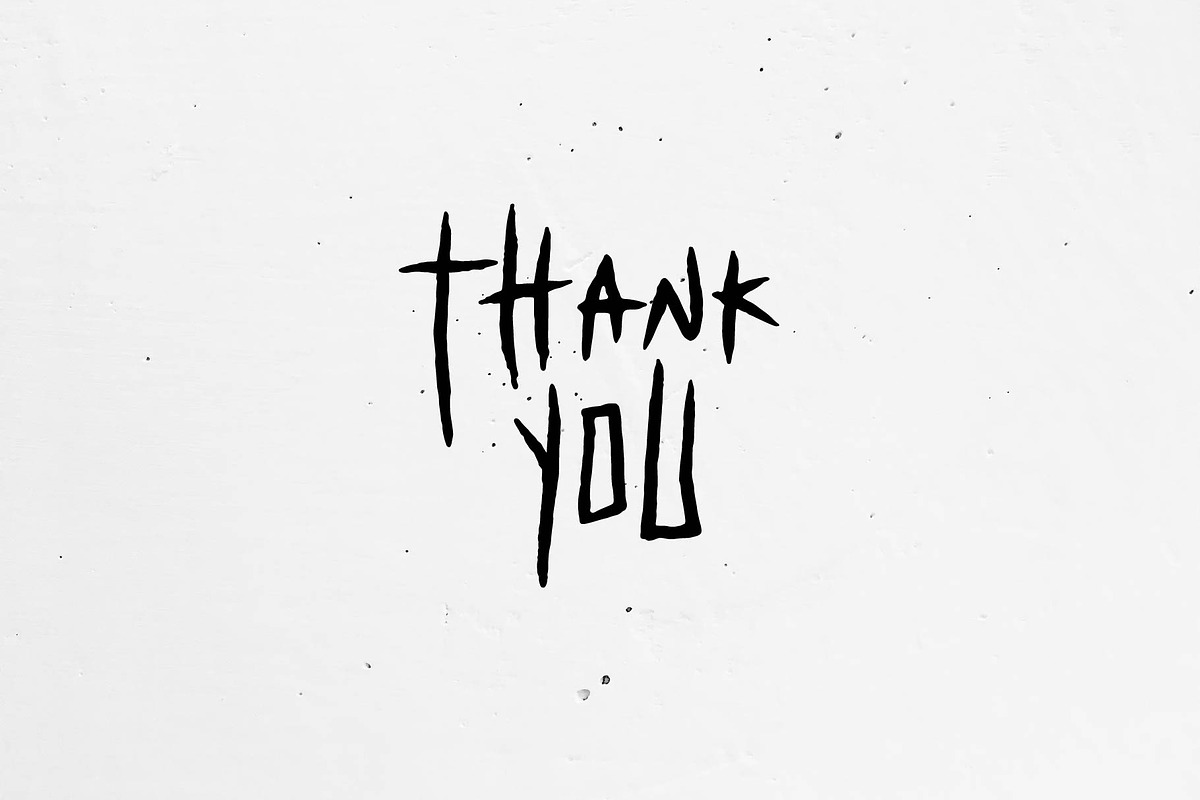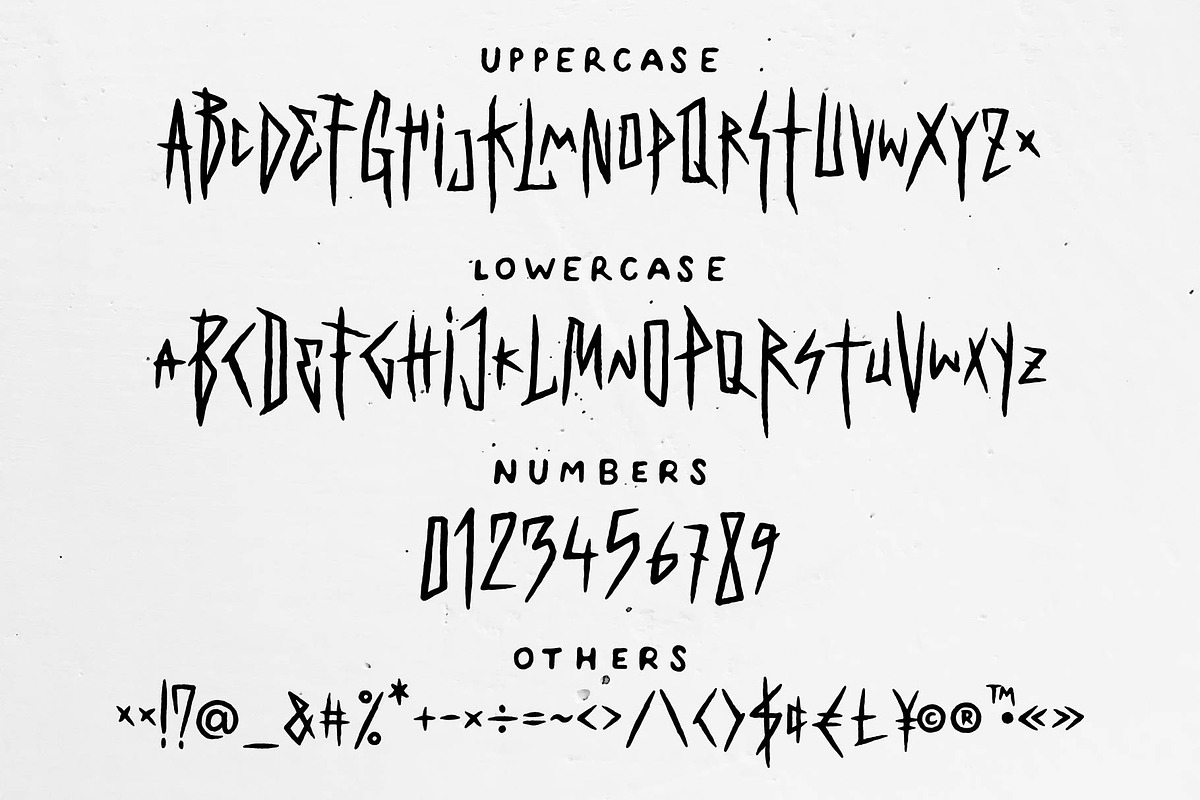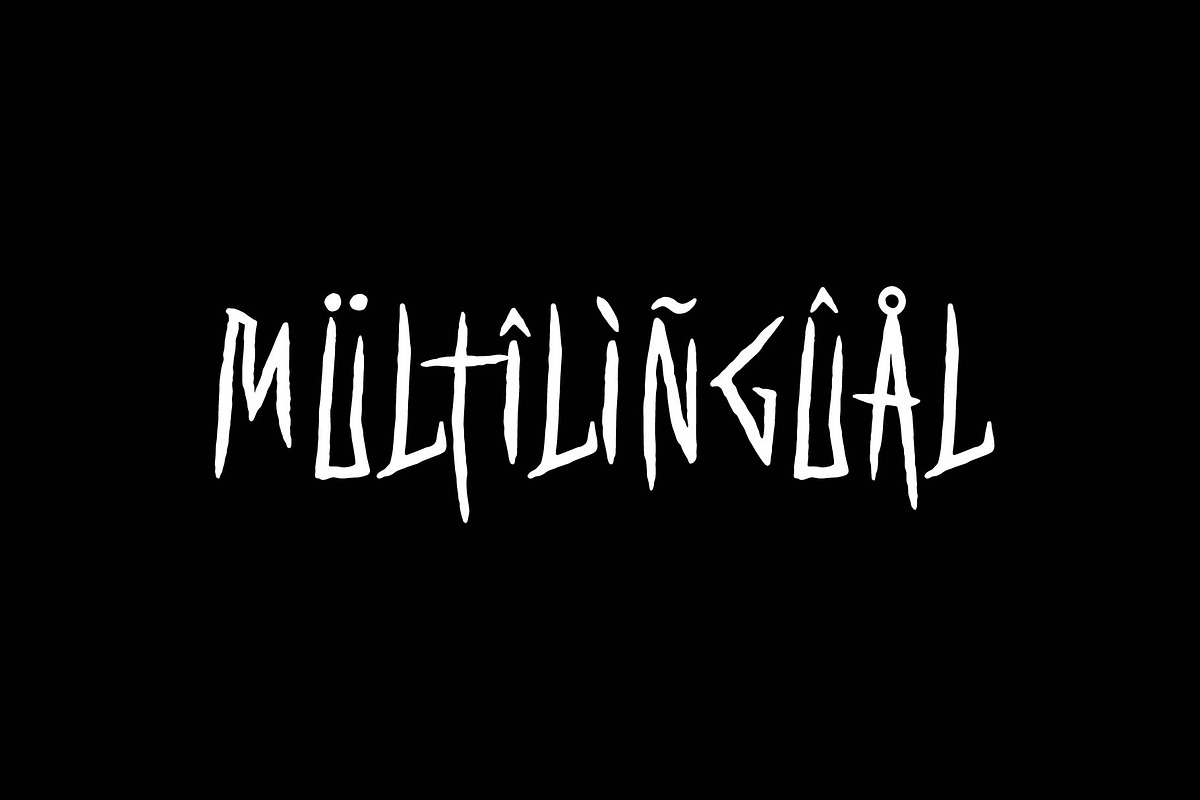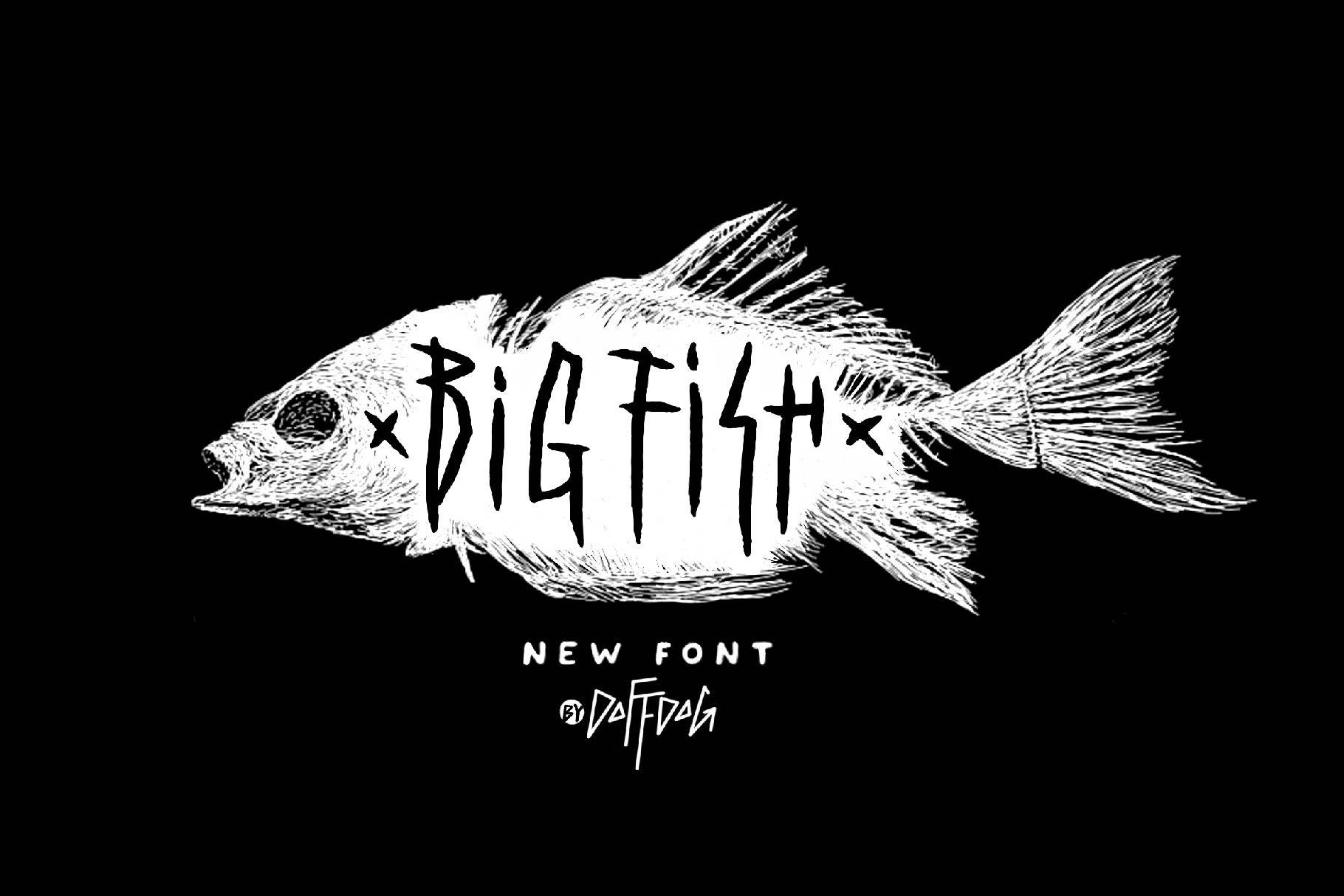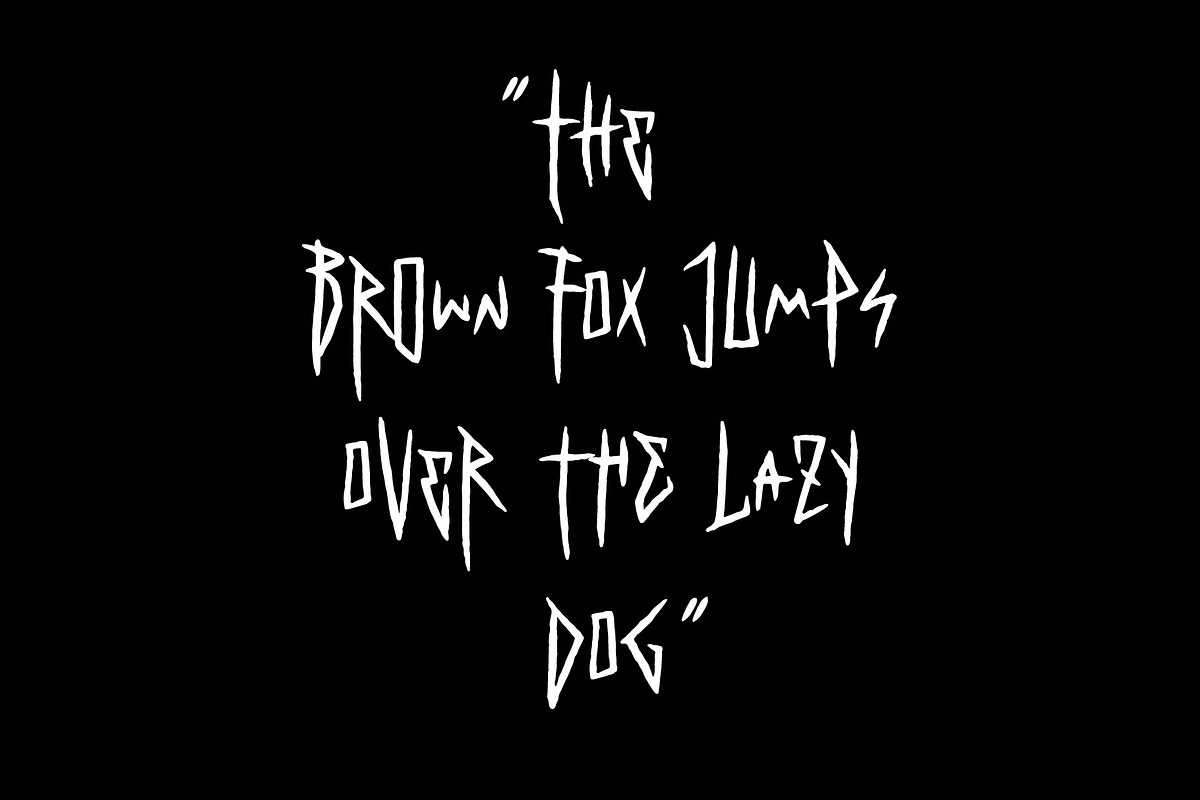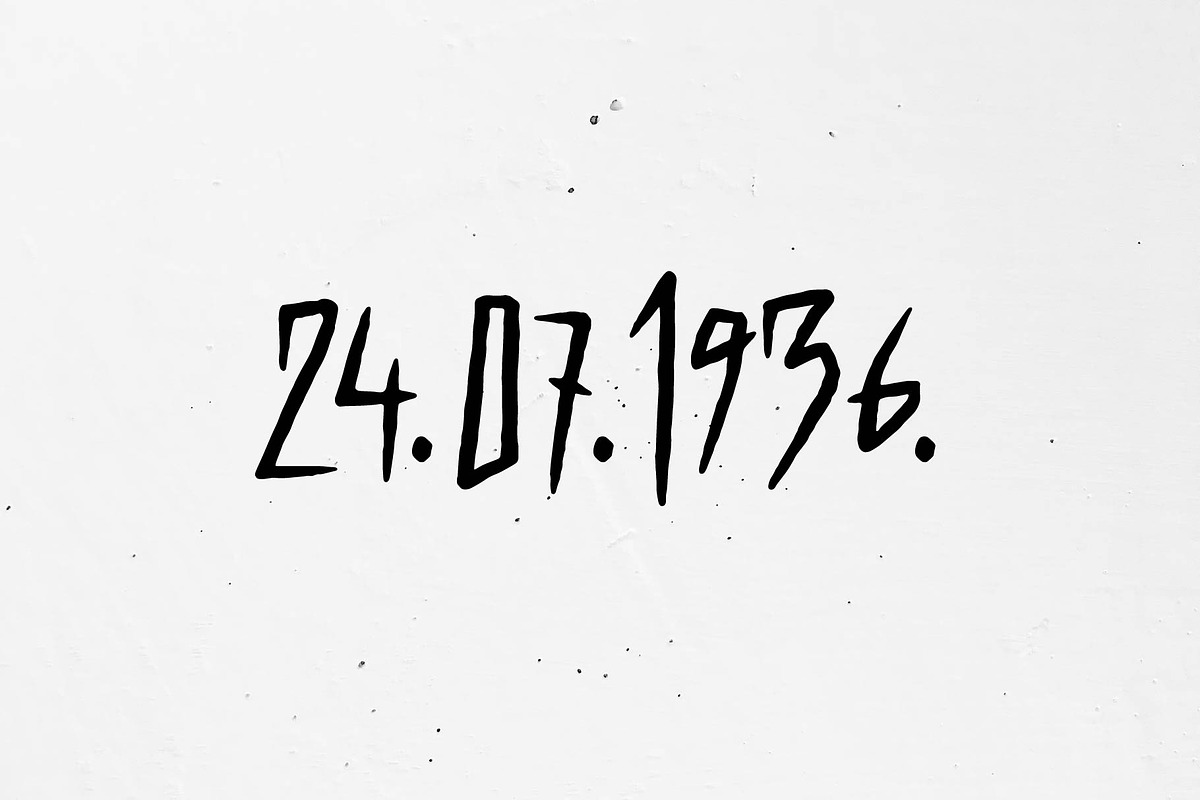
Big Fish DD is a decorative, metal and punk rock music inspired font. It is perfect for:
- Logos
- Posters
- Headlines
- Apparel
- Music covers
- & more
This is an unusual font. Kinda like a kid's earliest printing - like a fish might do since they don't have hands, just fins! I was really hoping the fish shape would be included but it doesn't seem to be. I had a 2200 gal. natural pond for 15 years so have TONS of photos of my "kids". Sometimes I was sure I could hear what they were saying, this font is perfect for scrapbook pages with them "talking". Silly but cute I hope! Thanks!
Cool font with an authentic style, with good features like the very useful (múltïliñgual) signs, numbers, upper, and lower cases